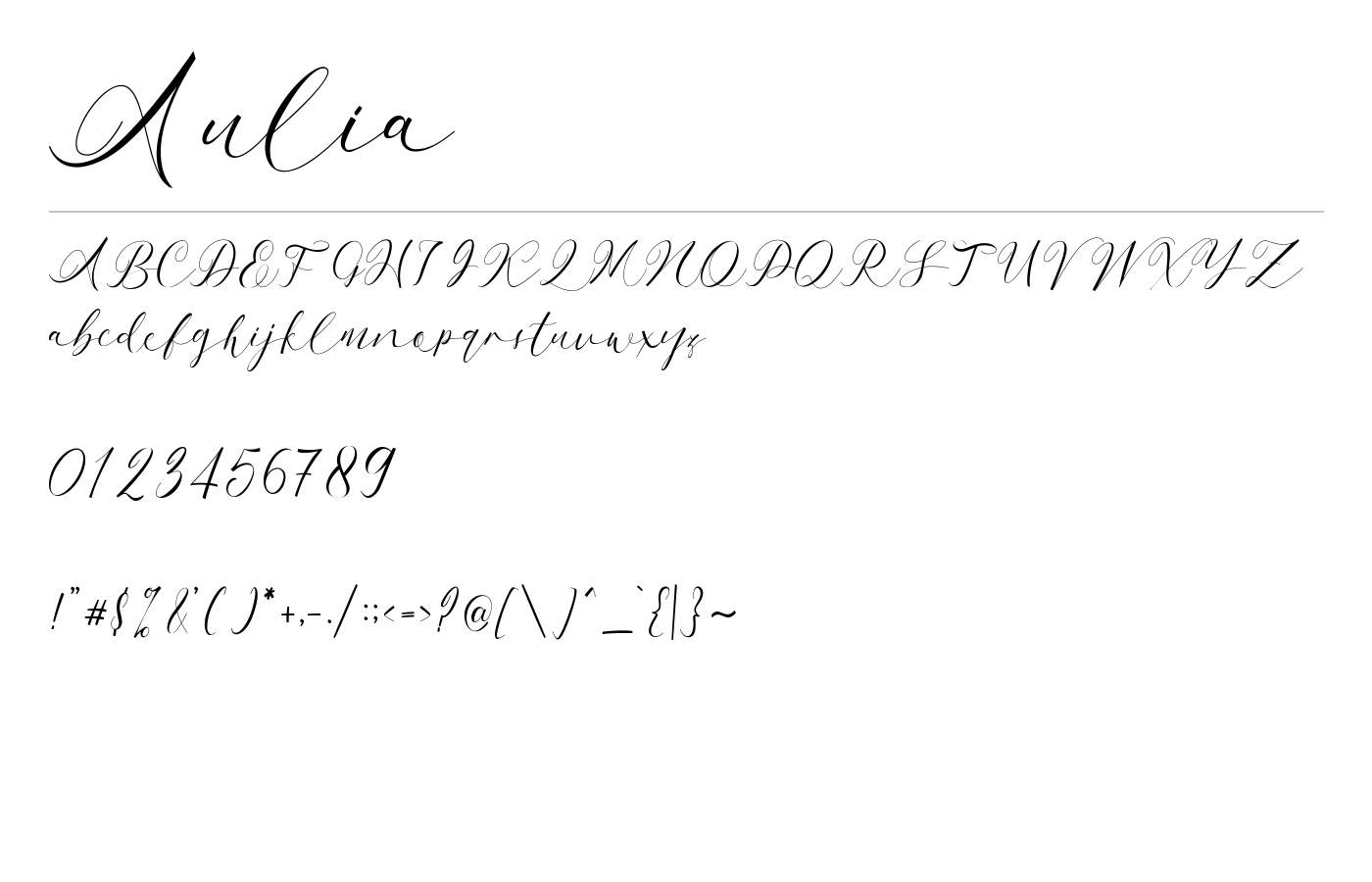
Aulia is an elegant script font with delicate, flowing strokes and a refined calligraphic style. Its fine, high-contrast lines and graceful letterforms create a sophisticated and romantic feel, making it ideal for wedding invitations, luxury branding, and stylish editorial designs. This font works best in display contexts where its intricate curves can shine and add a touch of elegance.
Aulia Font
About Aulia Font